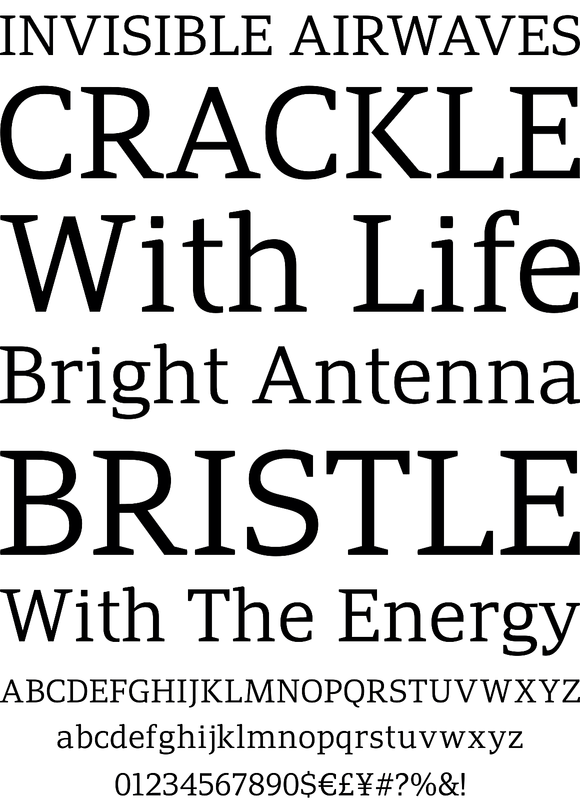
PF Adamant Pro
Foundry: Parachute
The Adamant family is a serif typeface that comes in six weights, from Light to ExtraBold, each with italic and small caps versions. Every font includes ligatures, lining and oldstyle figures in proportional and tabular widths, fractions, alternate characters, and other typographic features. The weights are finely balanced so that they can be easily combined, depending on type of paper and print conditions. ts proportions, sturdy serifs, high x-height and wide apertures make it very readable at small sizes. It is suitable for setting books, magazines and newspapers, but is also appropriate for use in large sizes like in poster design. It supports Latin and Cyrillic.